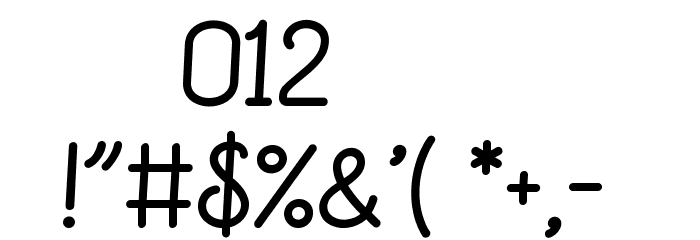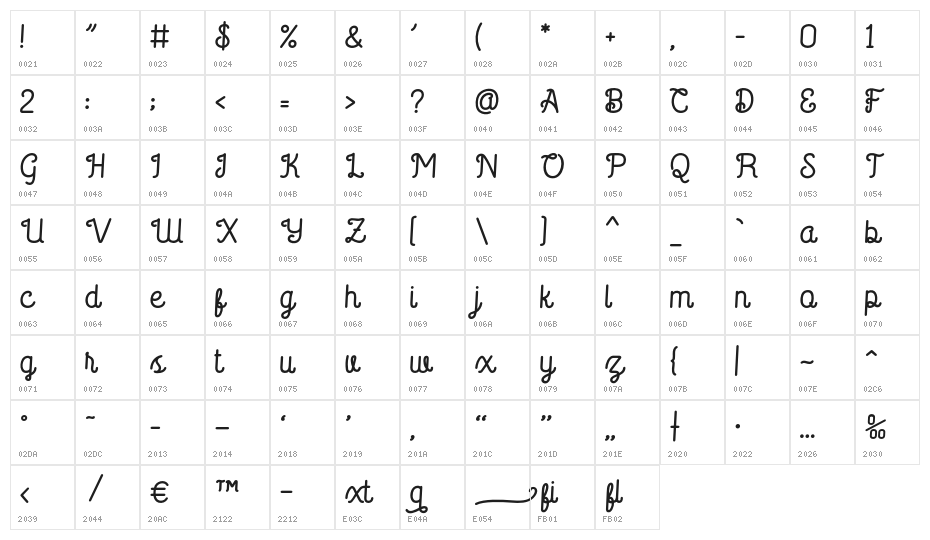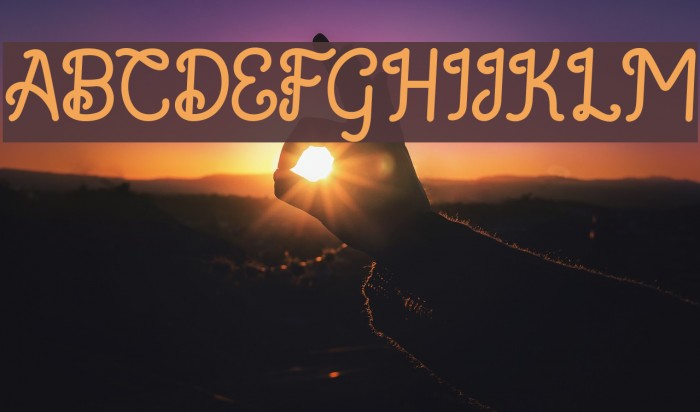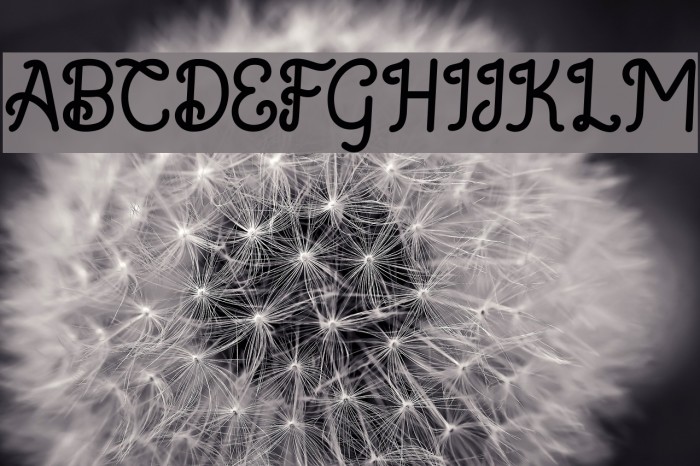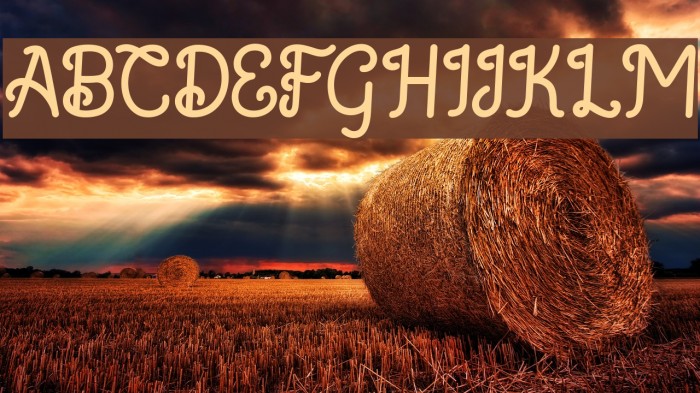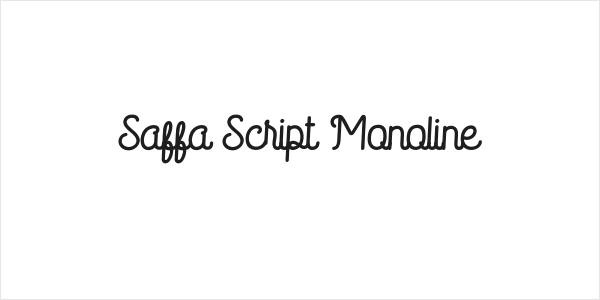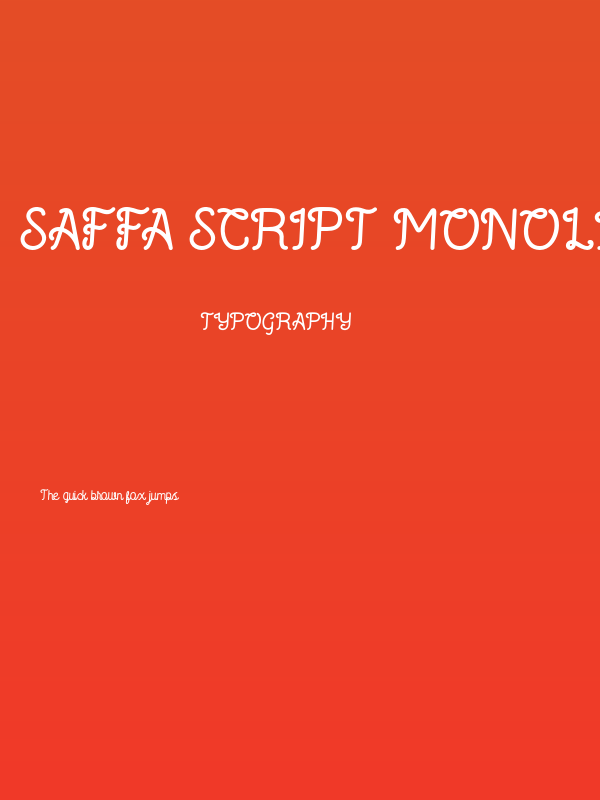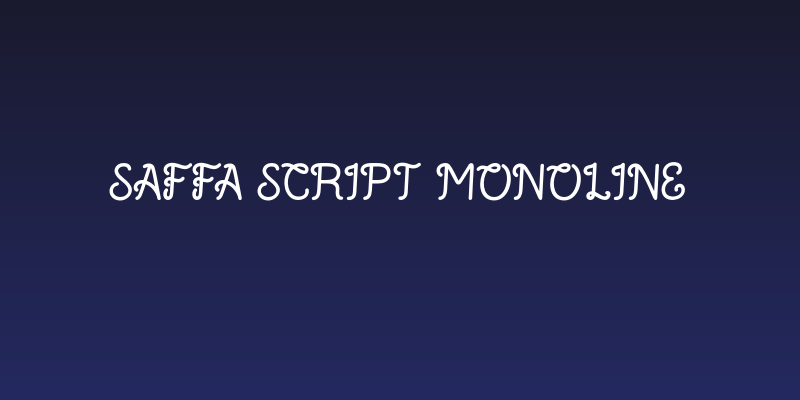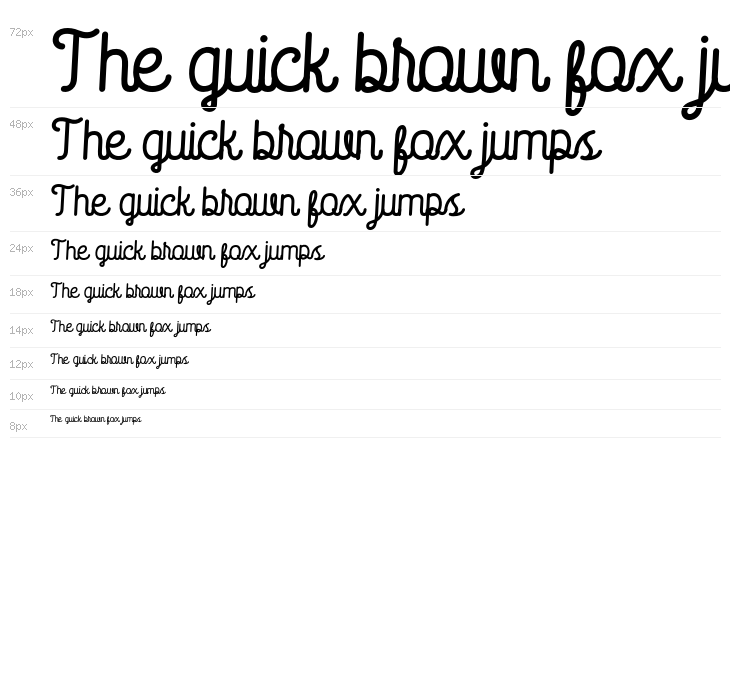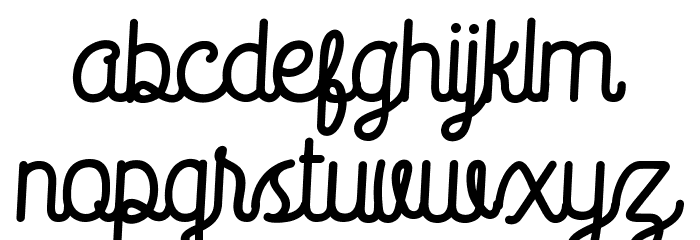
Saffa Script Monoline Font
Saffa Script Monoline Description
This font features a monoline script style with a playful and flowing appearance. Each character is crafted with consistent stroke width, giving it a smooth and harmonious look. The uppercase letters exhibit a unique blend of classic script elements with modern twists, while the lowercase letters maintain a friendly and approachable feel. The numerals and special characters are designed to complement the alphabet with the same fluidity and charm. This font is versatile and can be used to add a personal touch to various design projects.
Use CaseLogos, Invitations, Social media graphics
Proposed ProjectsIdeal for wedding invitations, greeting cards, branding projects, and social media graphics.